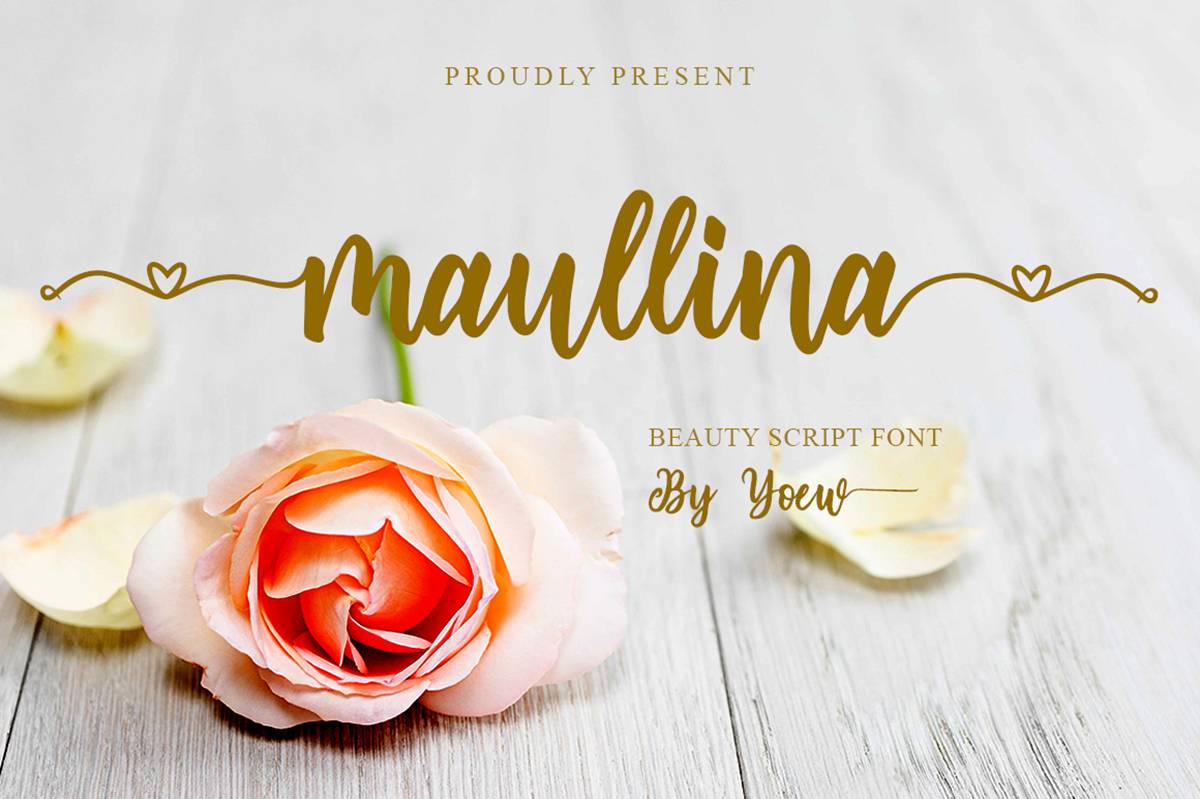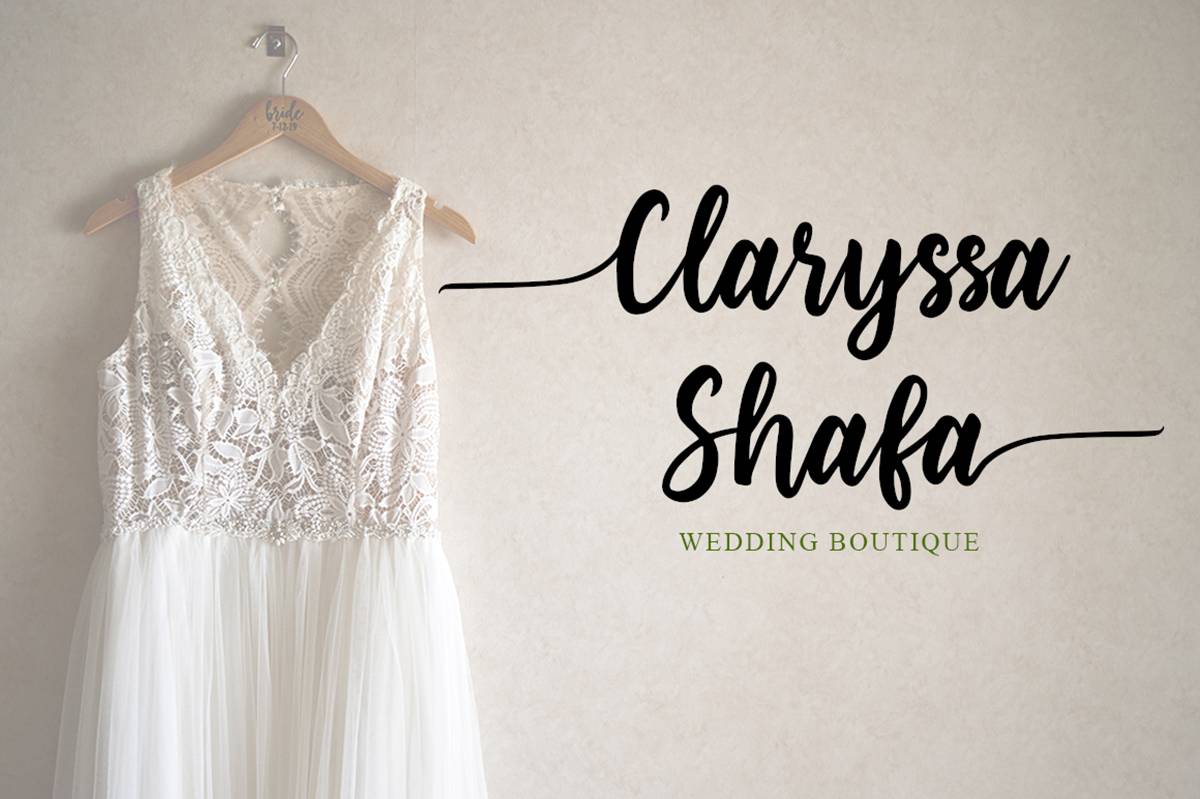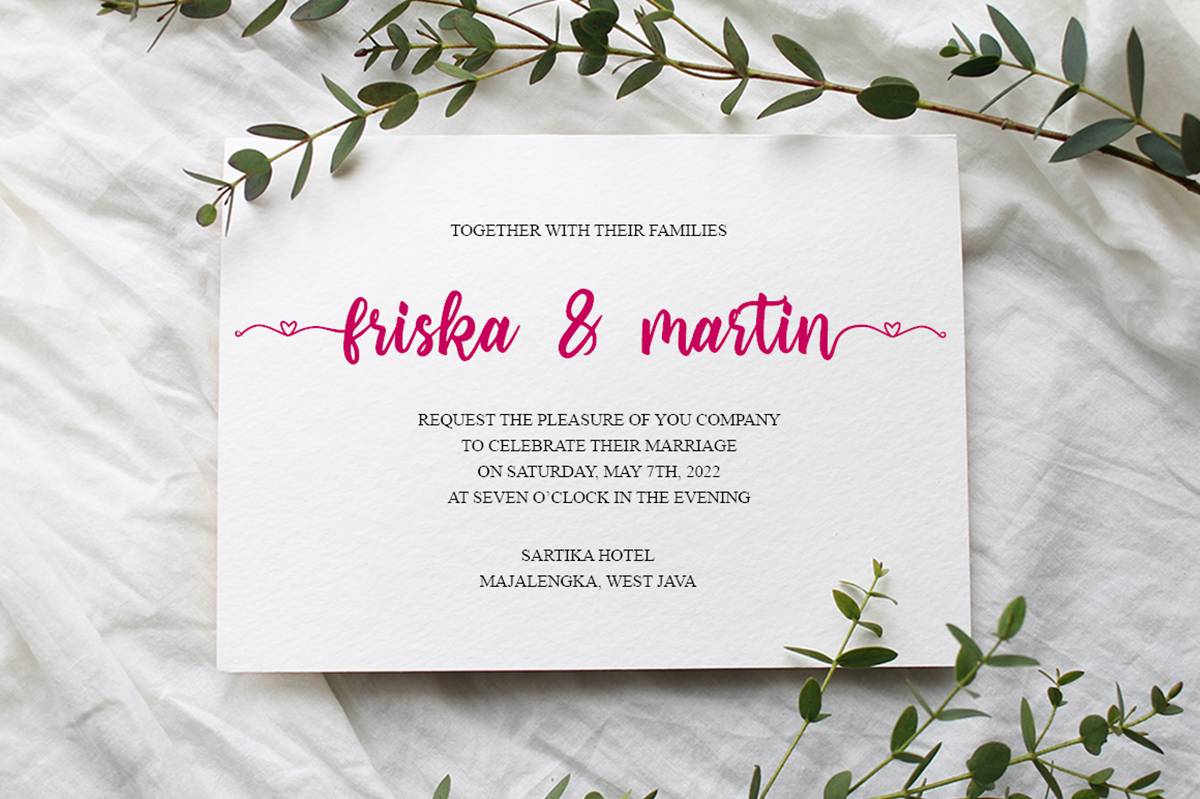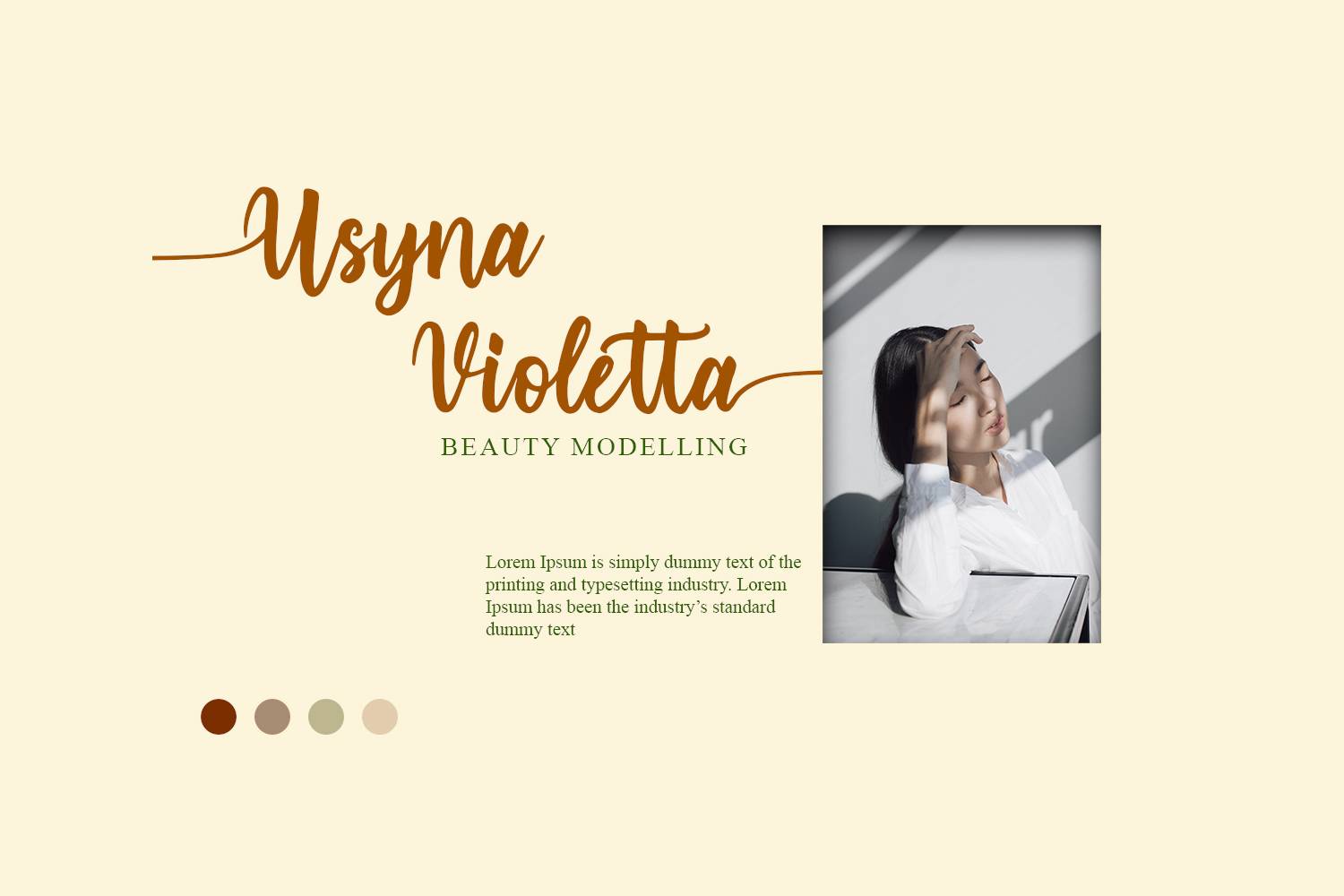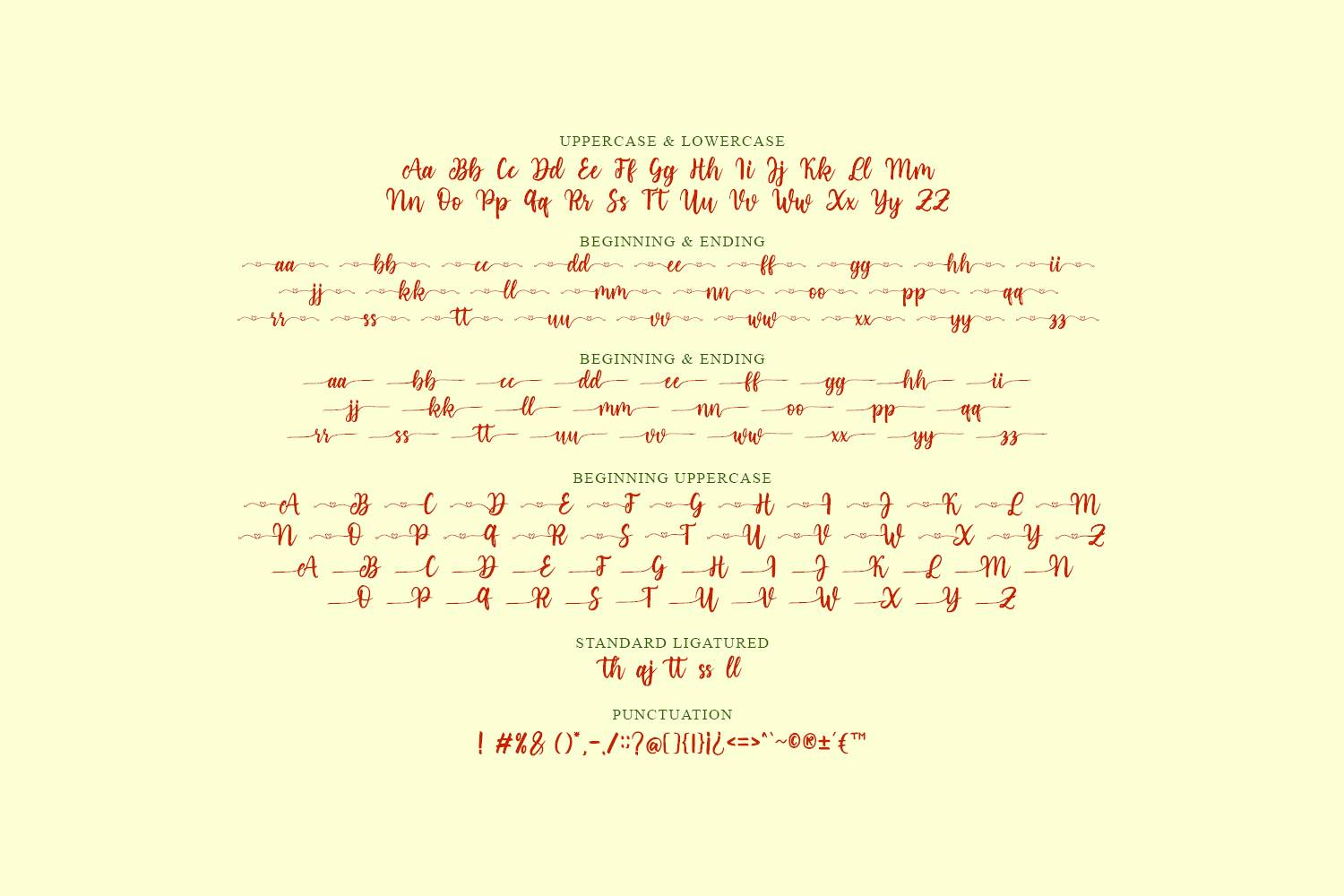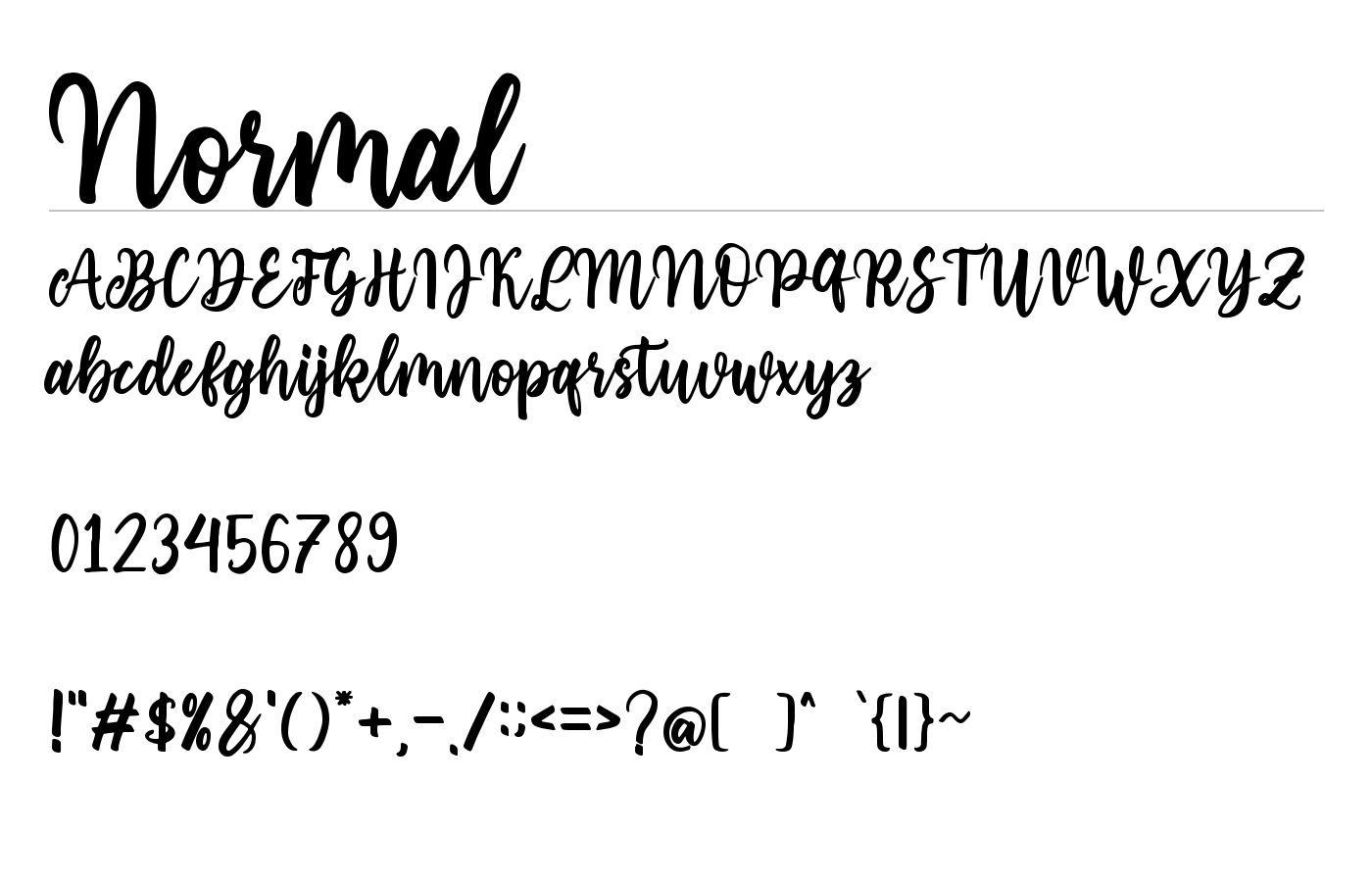
Maullina is a playful and elegant script font with smooth, flowing strokes that mimic natural handwriting. It features a medium weight with a lively, slightly condensed style that works beautifully for creative and personal design projects. Ideal for invitations, branding, and logos, Maullina brings a charming, friendly personality that feels both modern and approachable.
Maullina Font
About Maullina Font
| Font family | Maullina Font |
| Designer | Muhammad Wahyudin |